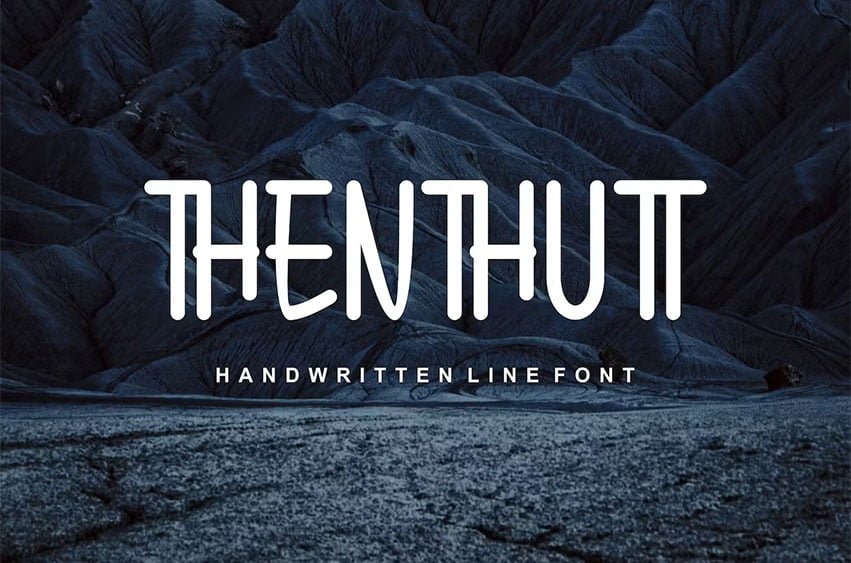
Thenthutt Font Introducing our new product Roghan Thenthutt Fonts modern fonts. Roghan Adventure Fonts modern font is a bold and authentic display font. The font is suitable for any branding project like.